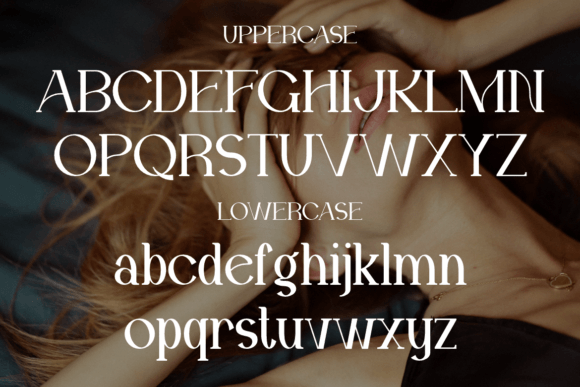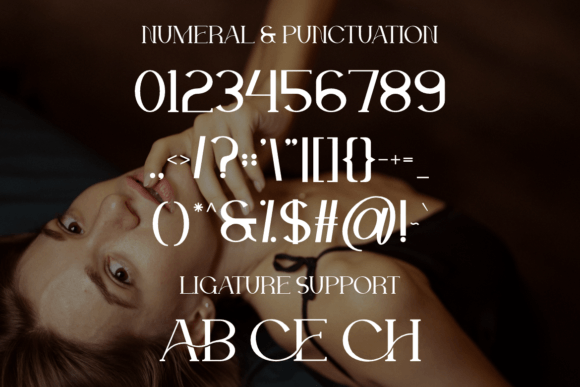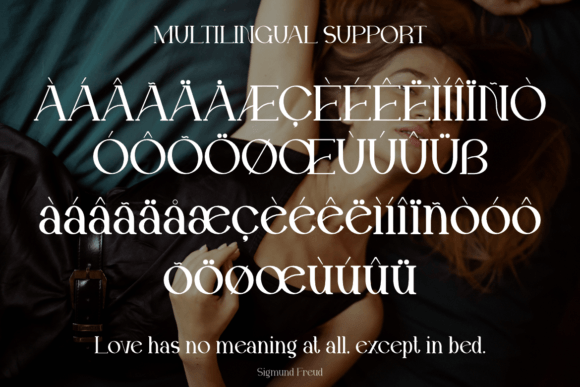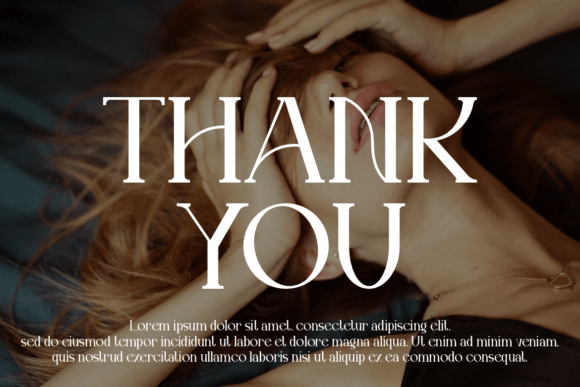
Introducing CHABUL – Beauty Serif: The Modern Font for Bold Designs
In the world of design, fonts play a crucial role in conveying the message and aesthetic of a brand. A well-chosen font can elevate a design from ordinary to extraordinary. Today, we’re excited to introduce CHABUL – Beauty Serif, a modern font that is set to revolutionize the way you approach your design projects. Whether you’re working on a logo, template design, esport, or any other branding project, CHABUL is the perfect choice for those looking for a bold and authentic display font.
What Makes CHABUL Stand Out?
CHABUL – Beauty Serif is not just another font; it’s a statement piece. Its unique blend of modernity and classic serif elements makes it outstanding in a wide range of contexts. Here are some key features that make CHABUL a must-have for designers and crafters:
- Bold and Authentic: CHABUL boasts a bold presence that demands attention. Its authentic design ensures that your projects stand out in a crowded marketplace.
- Versatile: From logos and template designs to esport projects and more, CHABUL’s versatility knows no bounds. It’s designed to adapt to various design needs, making it a valuable addition to your font library.
- Beauty Serif: The serif elements in CHABUL add a touch of elegance and sophistication, making it perfect for projects that require a bit of refinement.
- Modern Aesthetic: With its clean lines and contemporary design, CHABUL brings a modern aesthetic to the table, ensuring your projects look fresh and up-to-date.
Use Cases for CHABUL
The possibilities are endless with CHABUL. Here are some use cases where CHABUL can make a significant impact:
- Logo Design: Create a lasting impression with a bold and memorable logo that stands out.
- Template Design: Elevate your templates with a professional and modern font that captures attention.
- Esport: The gaming and esport industry demands bold and dynamic designs. CHABUL fits perfectly into this niche, adding a competitive edge to your projects.
- Branding Projects: Consistency is key in branding. Use CHABUL across your branding materials to create a cohesive and recognizable visual identity.
Why Choose CHABUL?
With so many fonts available, why should you choose CHABUL for your next project? Here are a few compelling reasons:
- Uniqueness: CHABUL offers a unique design that sets it apart from more traditional fonts.
- Legibility: Despite its bold nature, CHABUL maintains high legibility, ensuring your message is always clear.
- Adaptability: It’s designed to work well in both digital and print formats, offering flexibility across different mediums.
CHABUL – Beauty Serif is more than just a font; it’s a design statement. Its bold, authentic, and modern aesthetic makes it an invaluable tool for designers and crafters looking to elevate their projects. Whether you’re aiming to create a striking logo, a compelling template, or an impactful esport design, CHABUL is the perfect companion. Embrace the power of CHABUL in your next design venture and experience the difference it can make.